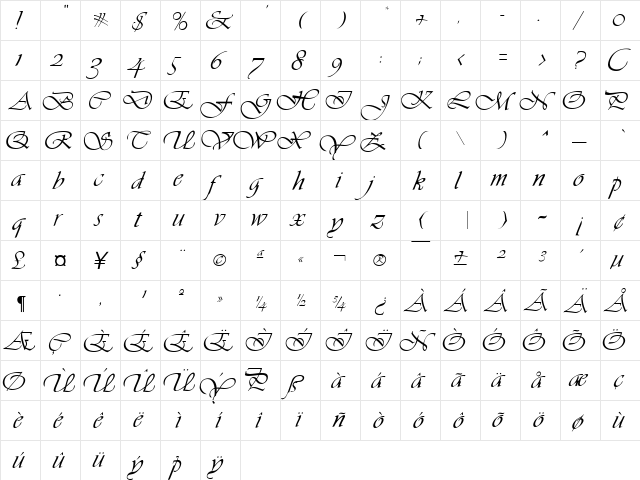
Vivienne Cacophony Regular
Design Context for Vivienne Cacophony Typeface
Vivienne Cacophony is a composed and adaptable typeface that performs quietly and consistently across a wide range of design contexts.